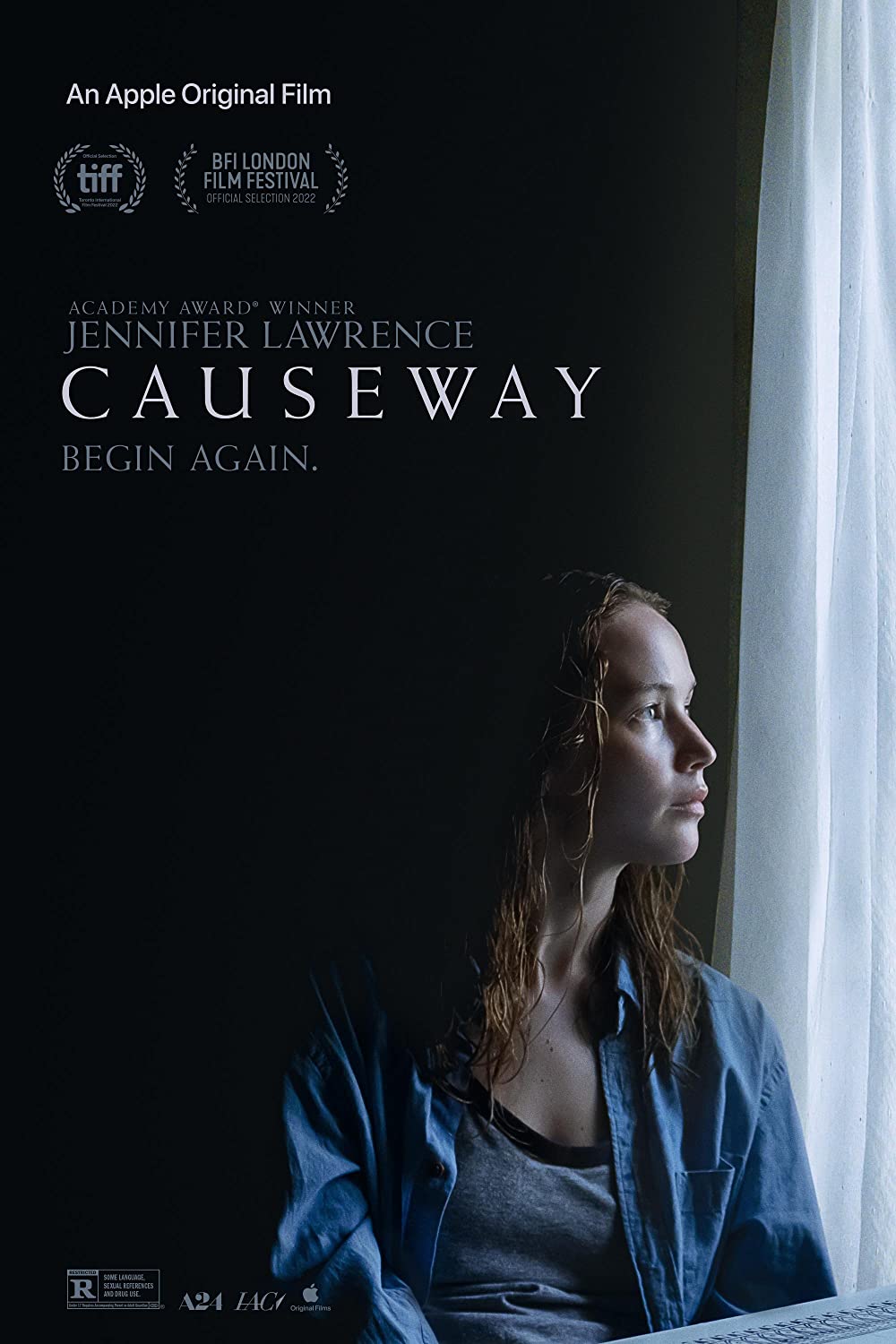
Causeway (film) Font
The title of the film "Causeway" on the poster is presented in the OL Avril Roman font. This font is a serif typeface designed by Dennis Ortiz-Lopez and Emil Rudolf Weiß, with similarities to the Trajan font. More details about the font can be found here